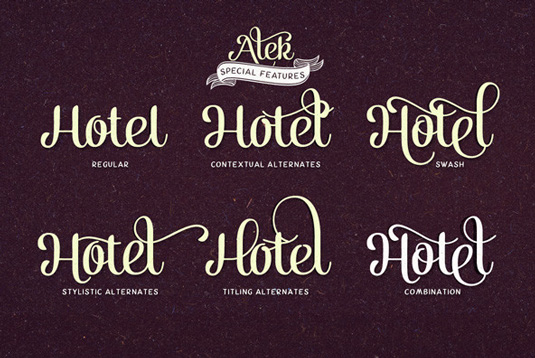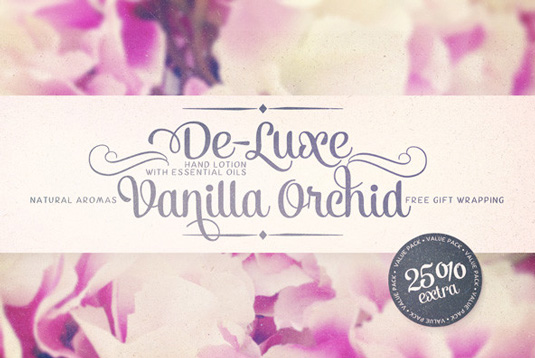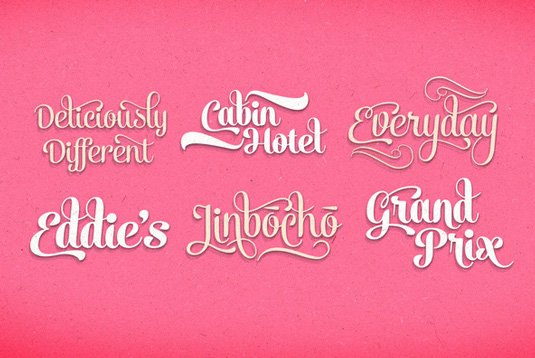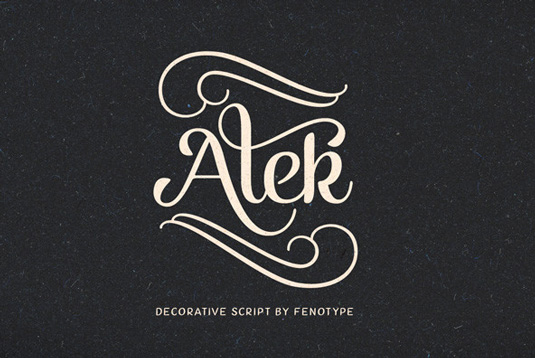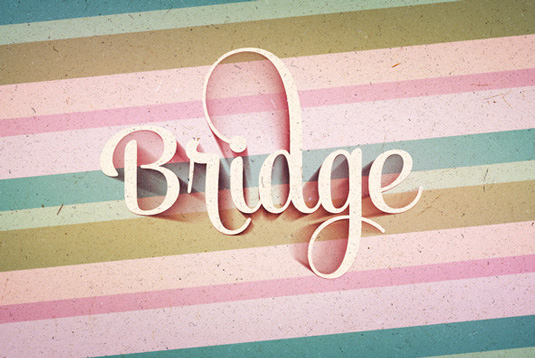
Font of the day: Alek
Alek by Emil Bertell
Decorative script font Alek was created by Emil Bertell, who comments on the design: "Alek is a classy and elegant yet playful upright script family of two weights and an ornament set Alek is equipped with plenty of OpenType features. Combine Alek with Alek Ornaments to complete your designs."